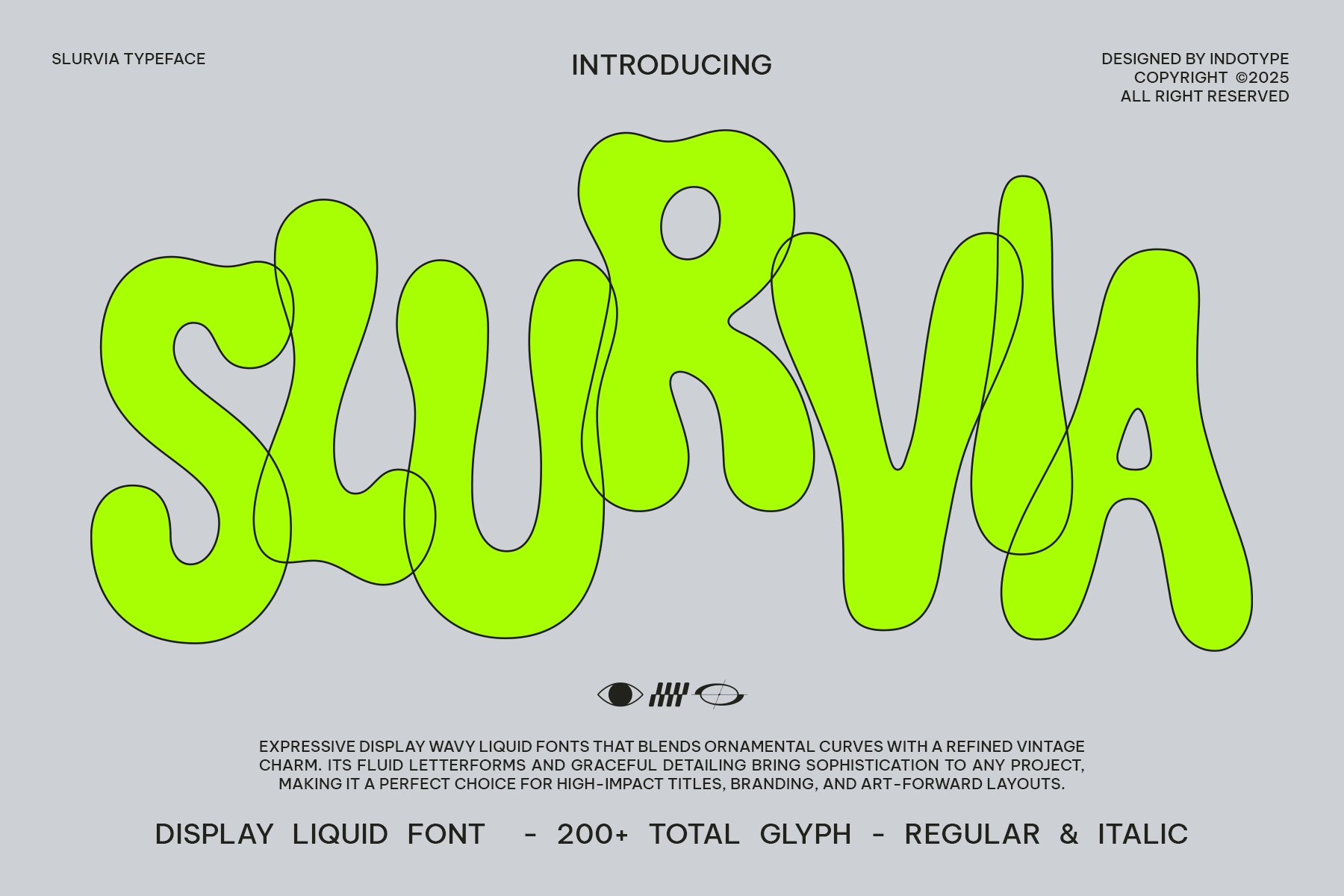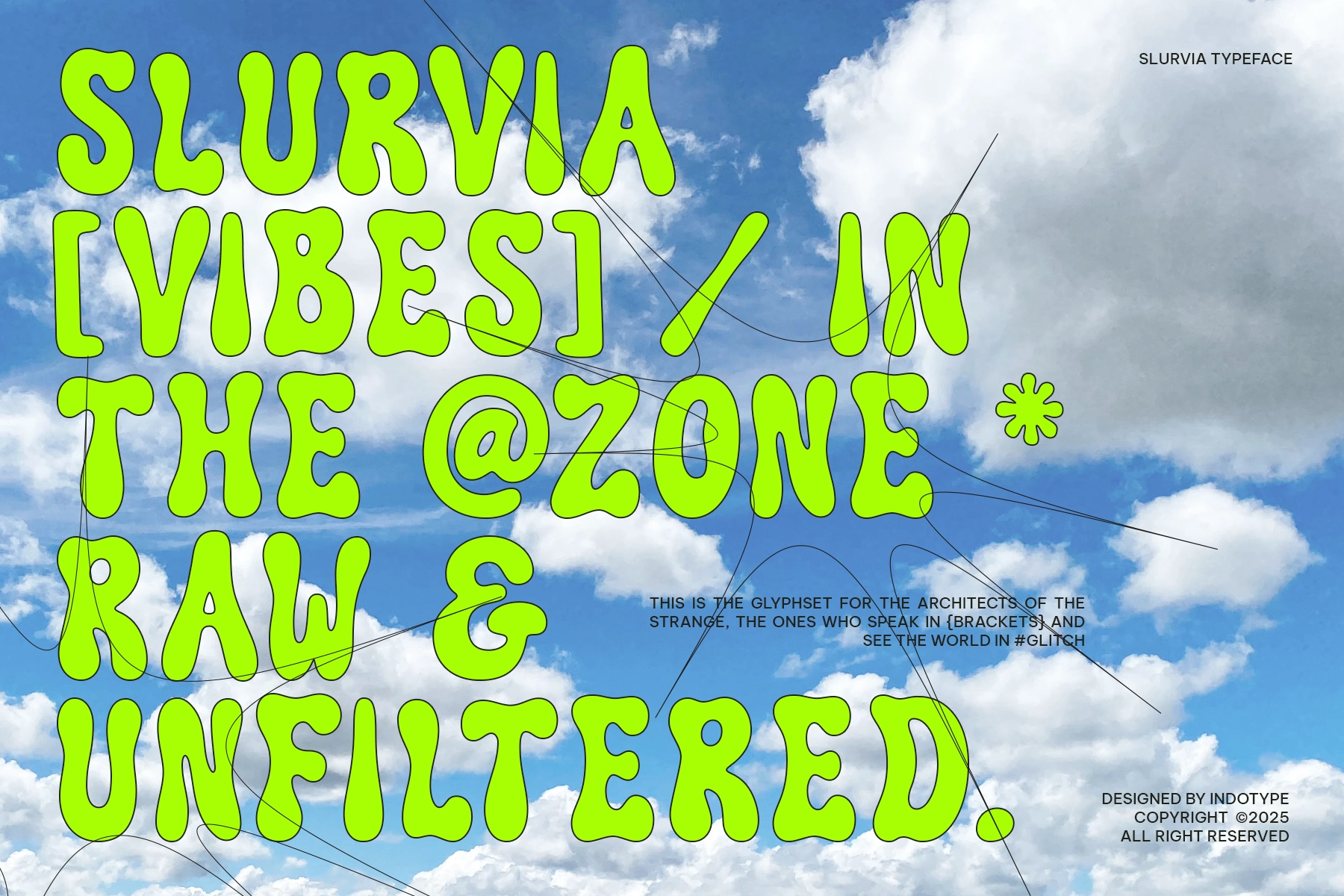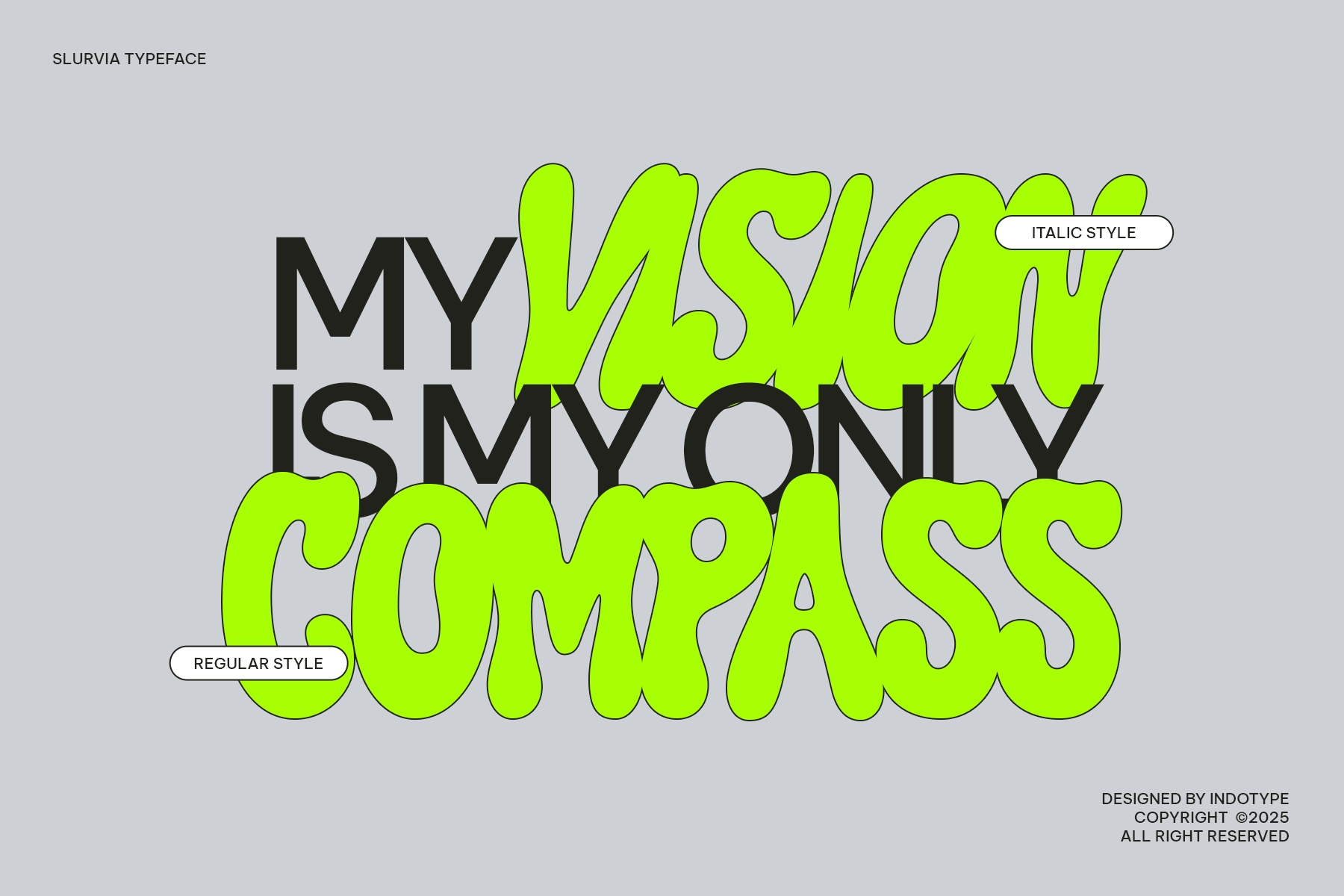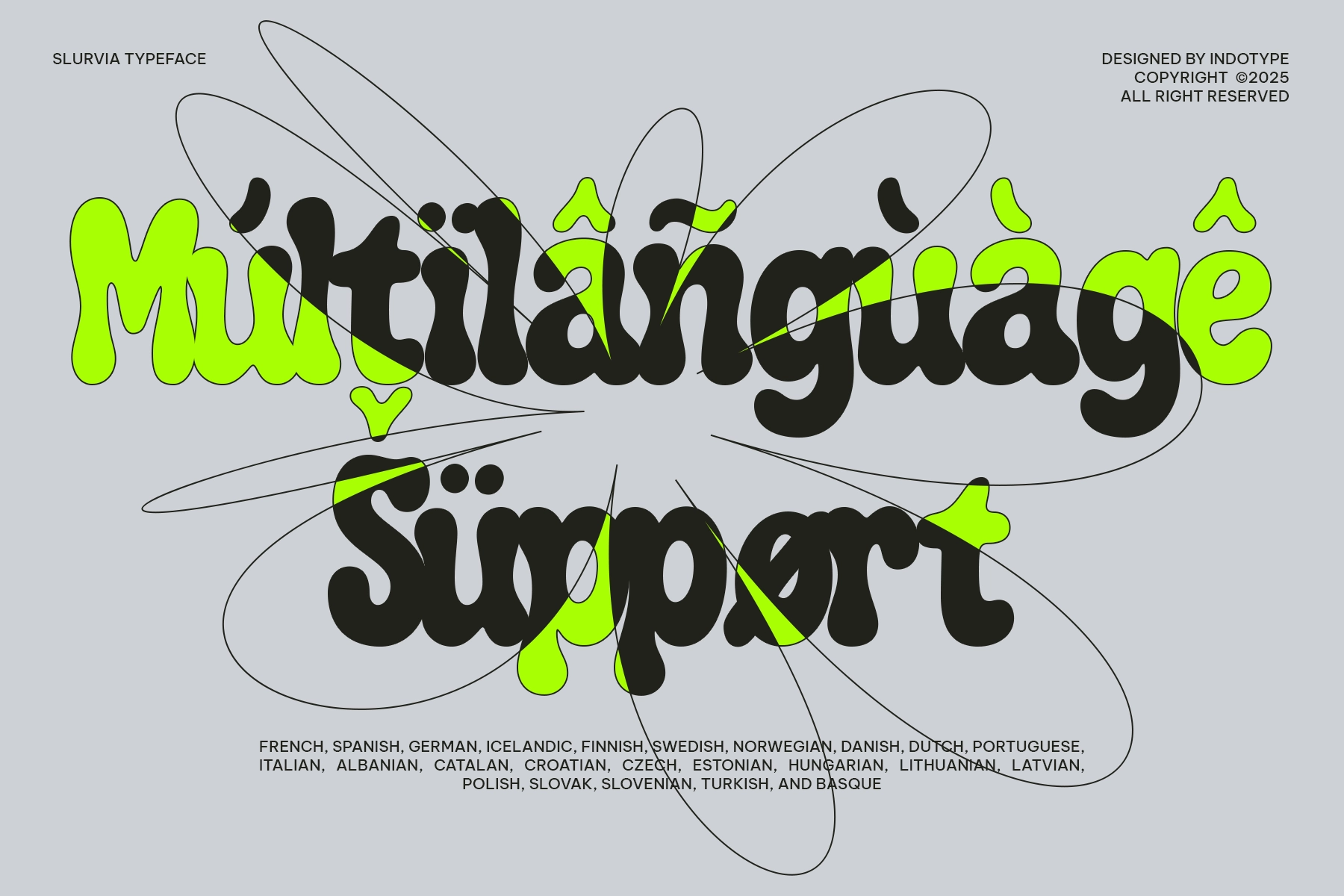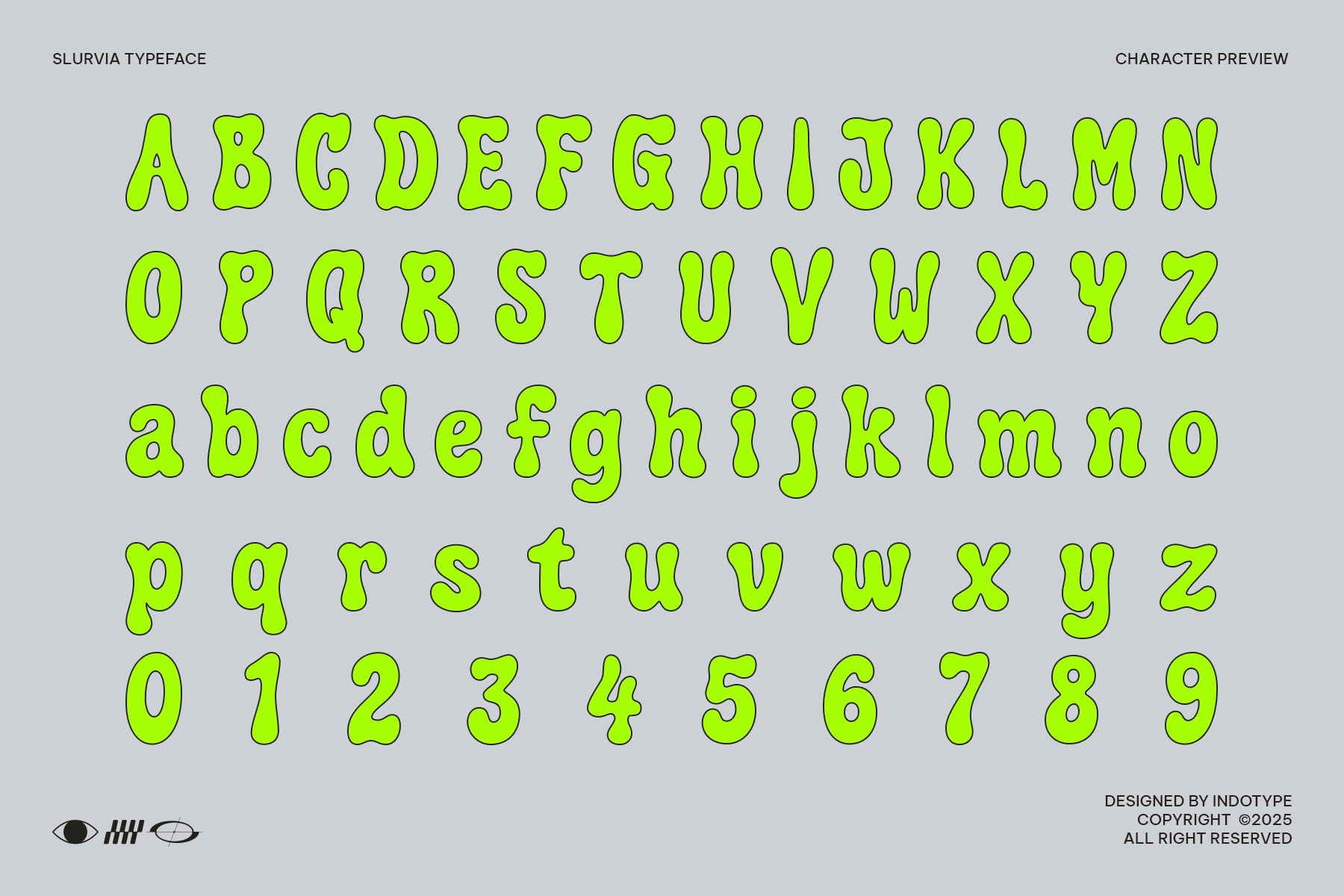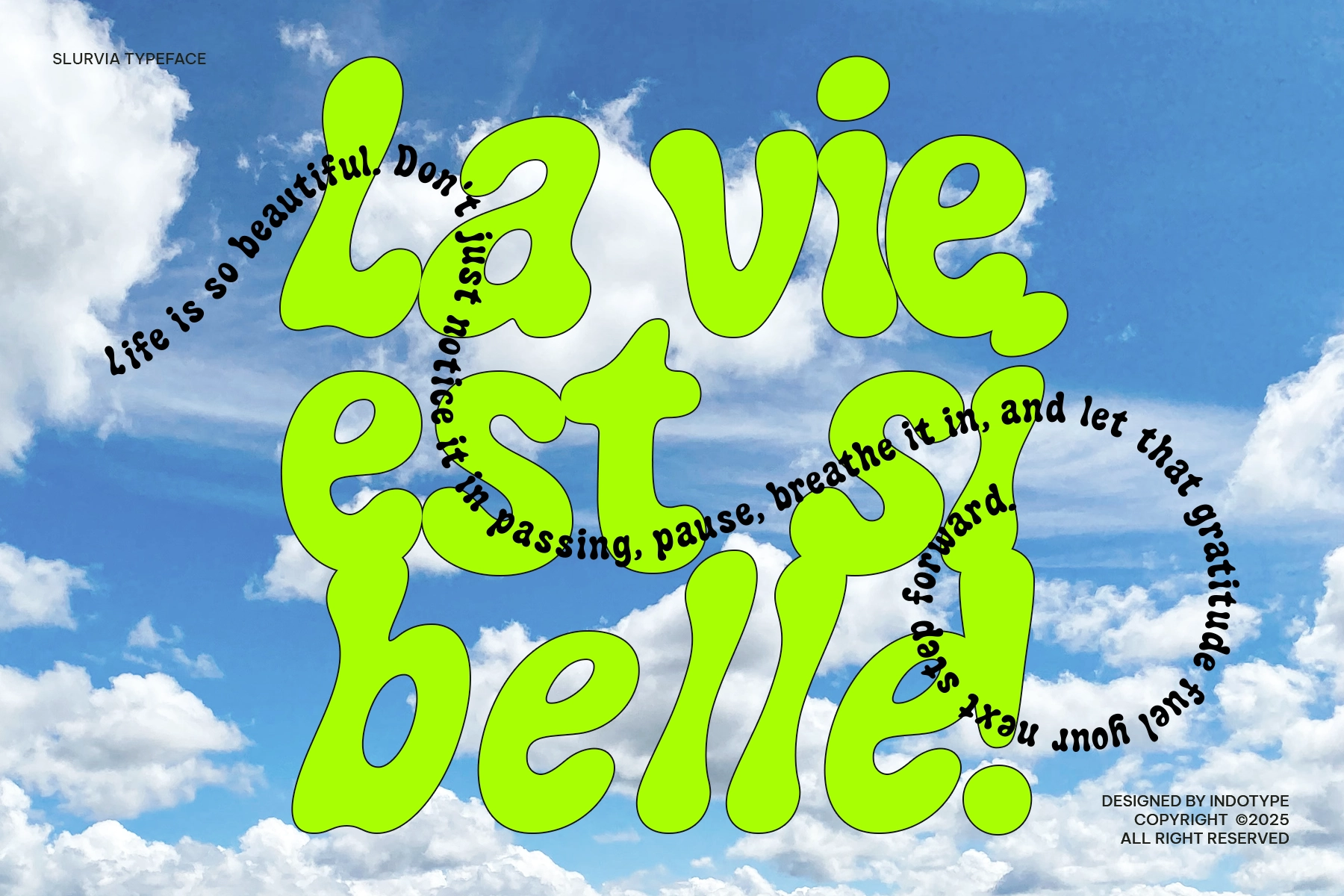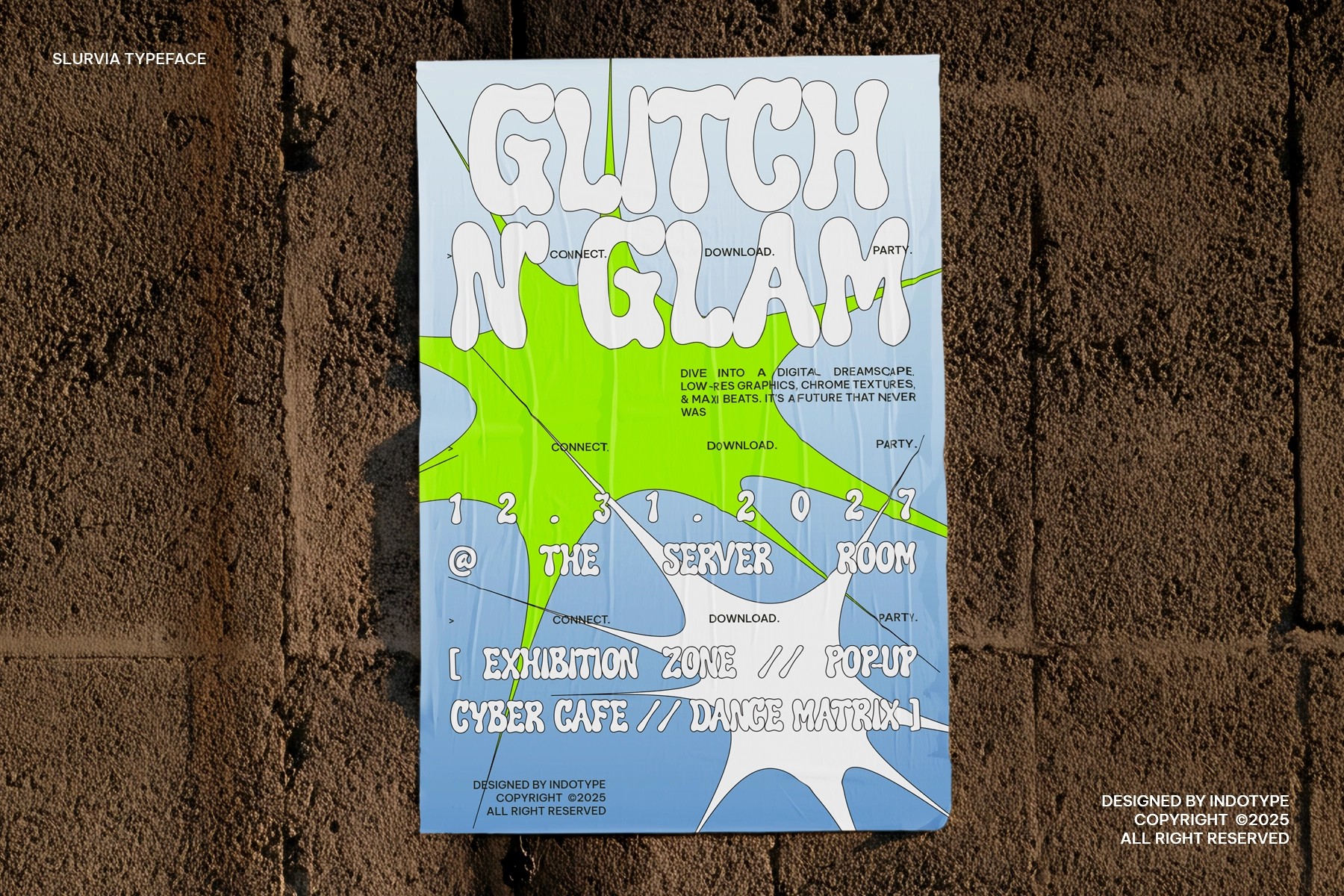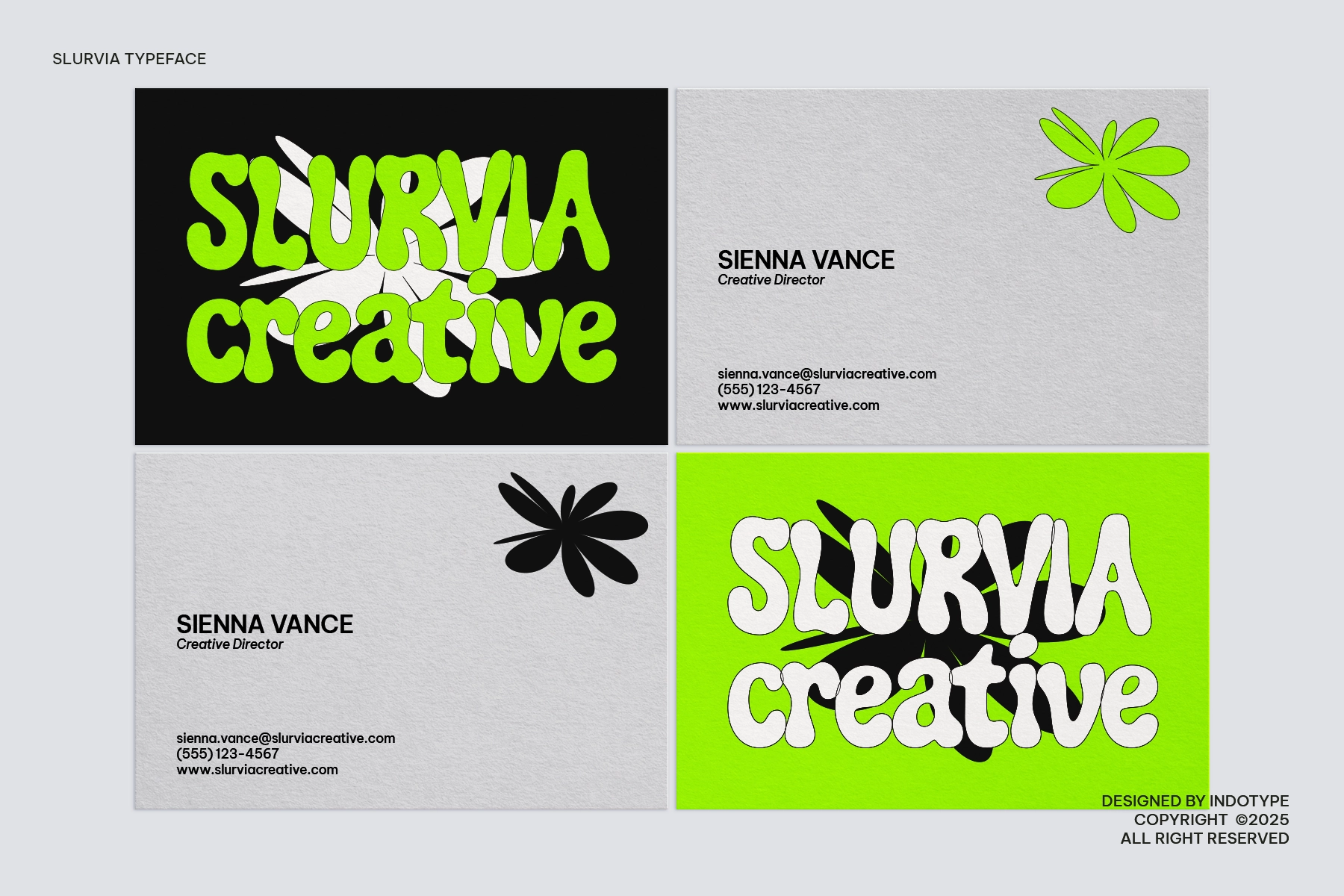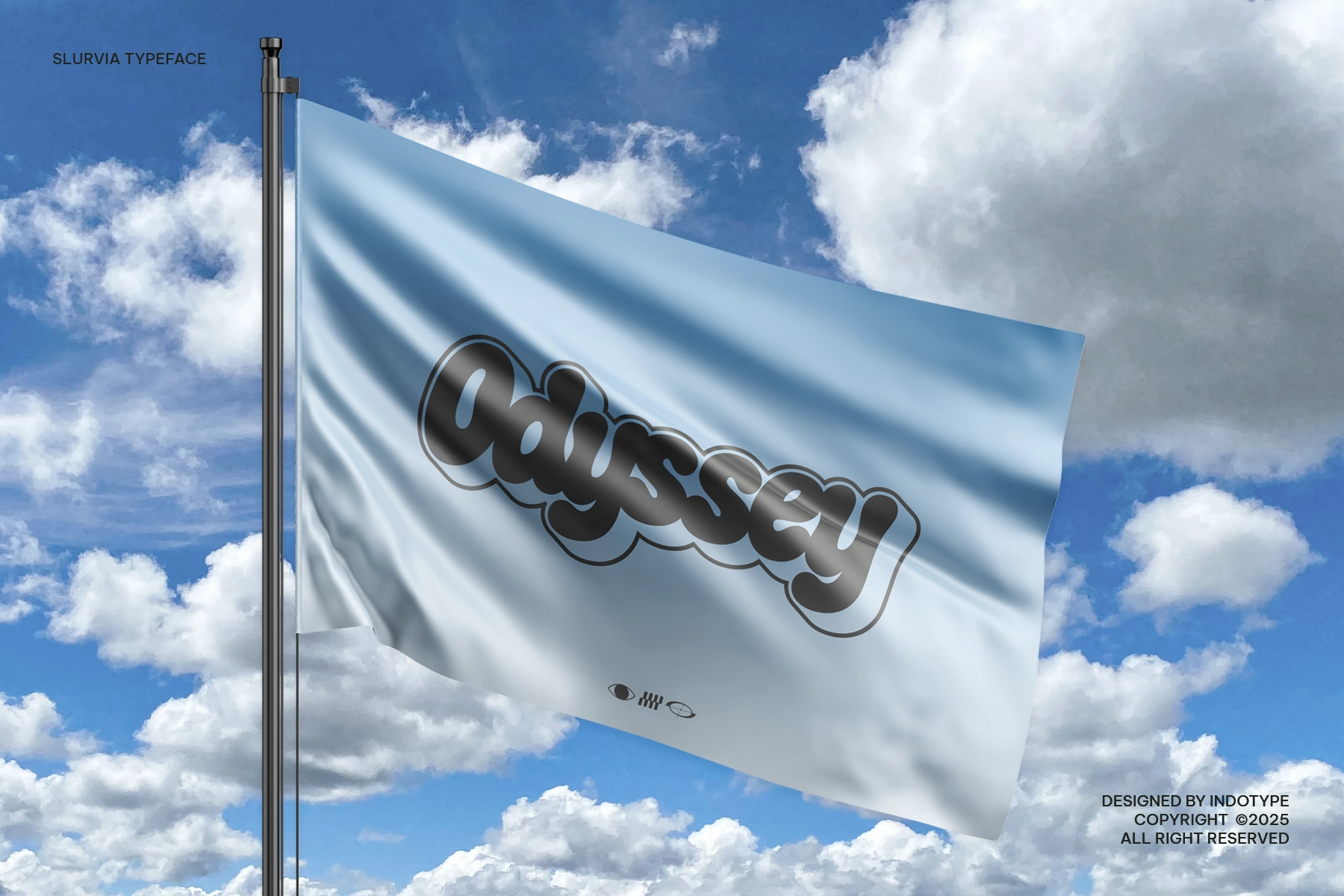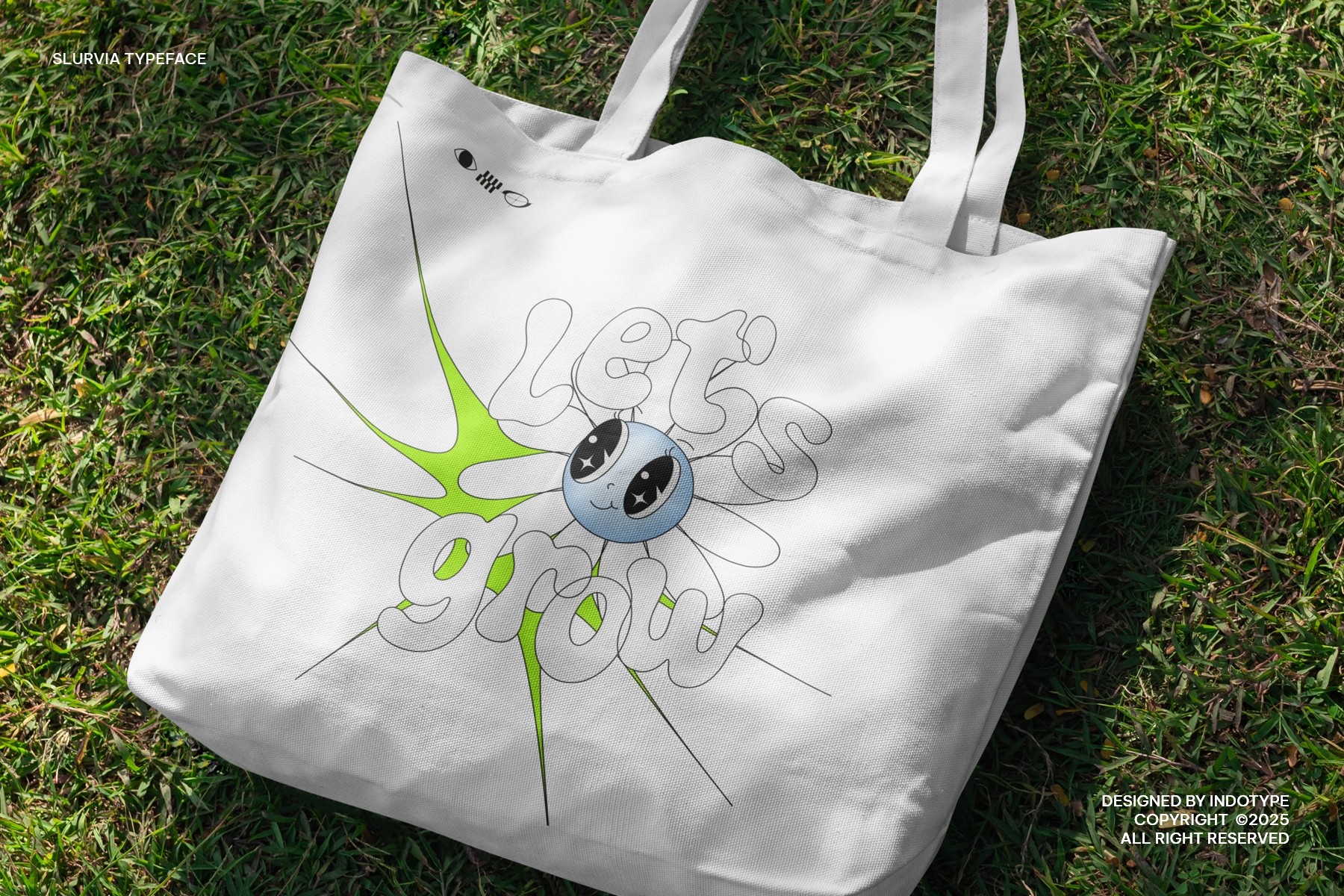
Slurvia - Liquid Display Font
A display typeface with soft liquid shapes, swollen curves, and a sharp appetite for attention. Its wavy letterforms carry a retro attitude without copying the past, pairing bubbly volume with oddball ornamental details and a clean graphic punch.
Slurvia works best where typography gets the main role: high-impact titles, brand marks, poster art, album covers, editorial openers, packaging, apparel graphics, stickers, social media headers, event flyers, zines, and more. The regular and italic styles give layouts room to shift from chunky and playful to fast, slanted, and slightly unhinged — useful for creative brands that prefer their words loud, strange, and properly dressed.